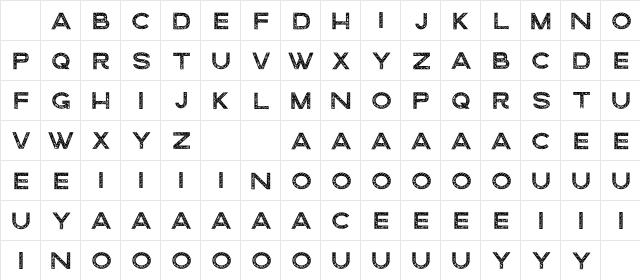
Complete Loveolline Sans Ro F Regular glyph index. Displaying only characters natively supported by Loveolline Sans Ro F Regular font.
Loveolline Sans Ro F is a composed and adaptable typeface that performs quietly and consistently across a wide range of design contexts.